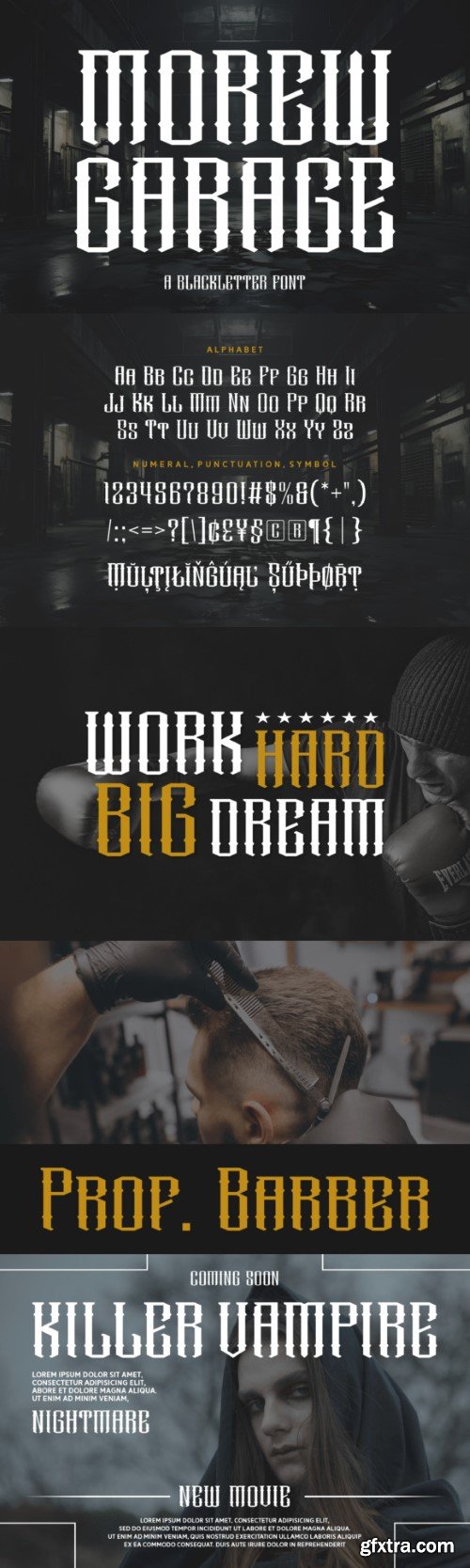
Morew Garage is a vintage blackletter font with a rugged, worn-in feel, combining gothic elegance with industrial charm. Its bold strokes and unique character make it perfect for retro designs, signage, logos, and apparel, evoking a timeless, rebellious spirit with a touch of nostalgia.